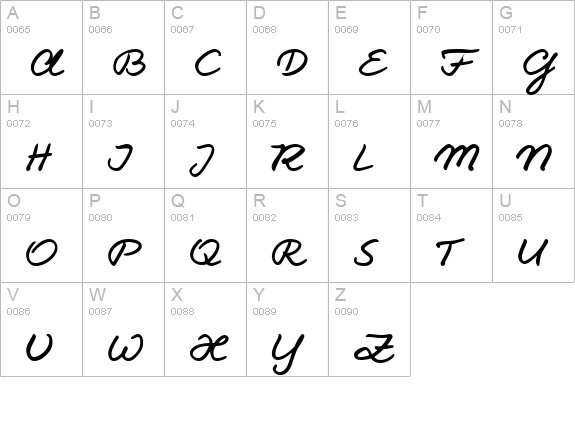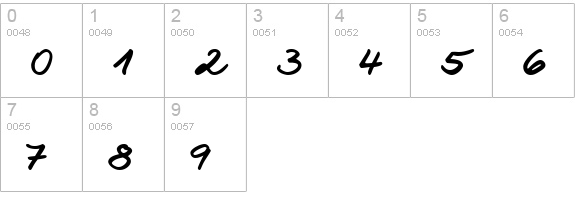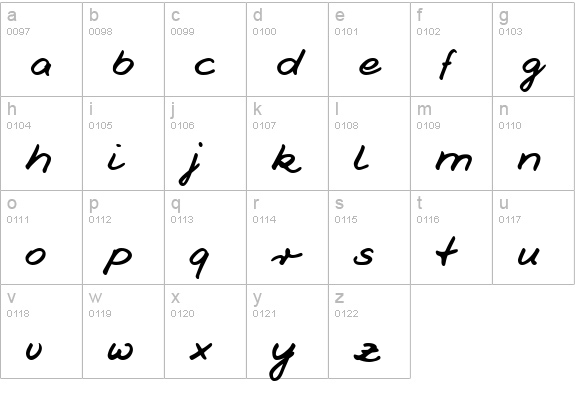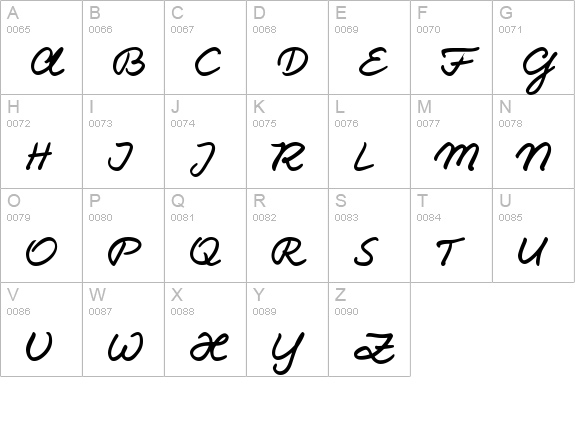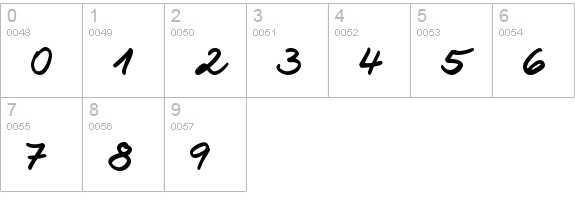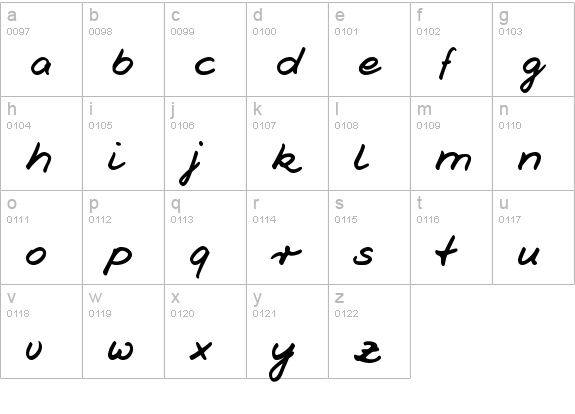
Jesco1 Handwriting Font Details
Jesco1 Handwriting font is a charming and whimsical typeface that exudes a sense of creativity and individuality. With its playful yet elegant strokes, this font is perfect for adding a personal touch to your projects. Whether you're working on invitations, greeting cards, or branding materials, Jesco1 Handwriting will bring a unique flair to your designs. The best part? Jesco1 Handwriting font is free to download at FontsMarket.com. You can easily access this delightful font and incorporate it into your creative endeavors without any cost. Embrace the creativity and versatility of Jesco1 Handwriting font today and elevate your designs with its distinct charm.